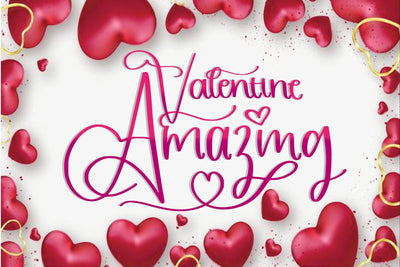
amazing valentine
perfect; logos, greeting cards, a package design, a brand identity, craft design, any DIY project, book title, wedding invitation, packaging, and more.
your best valentine. Perfect for your crafting projects, posters, magazines, food recipes, party invitations, and all other things that need this fun display type!